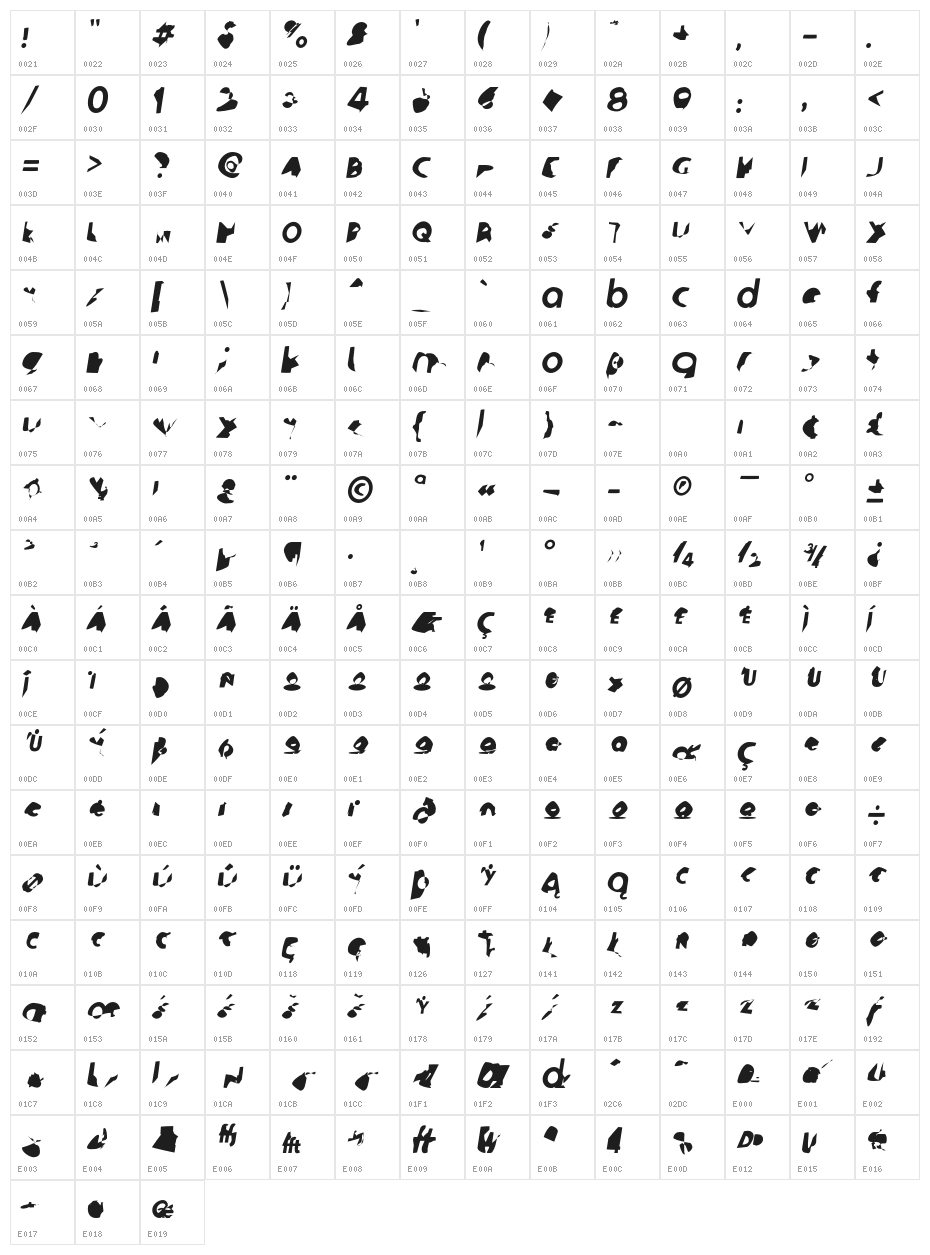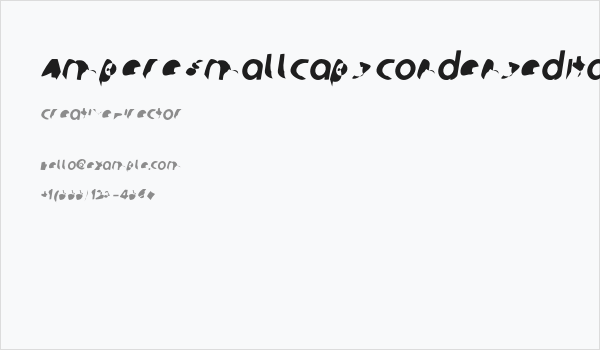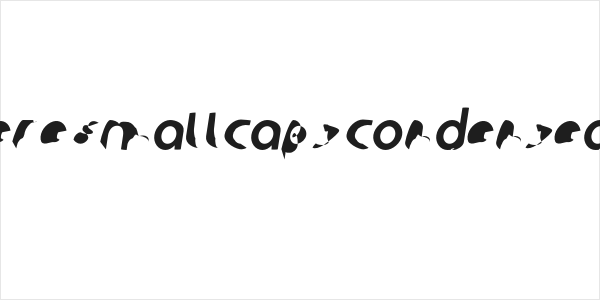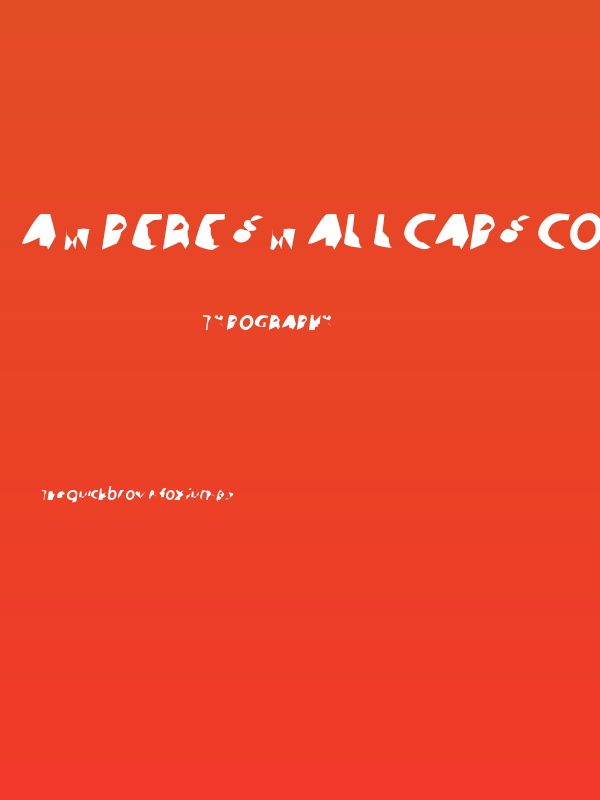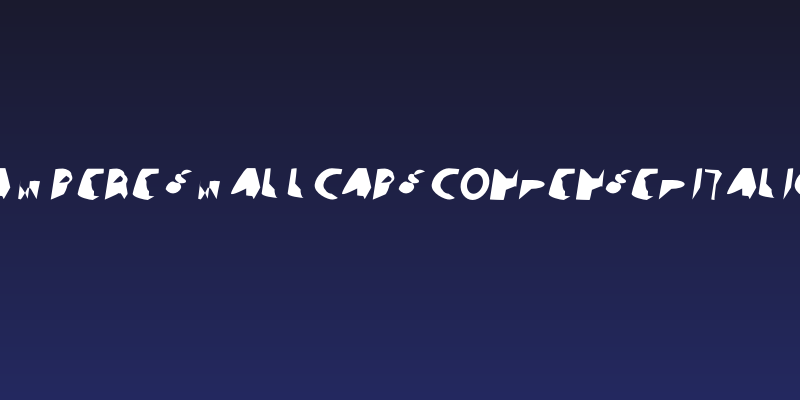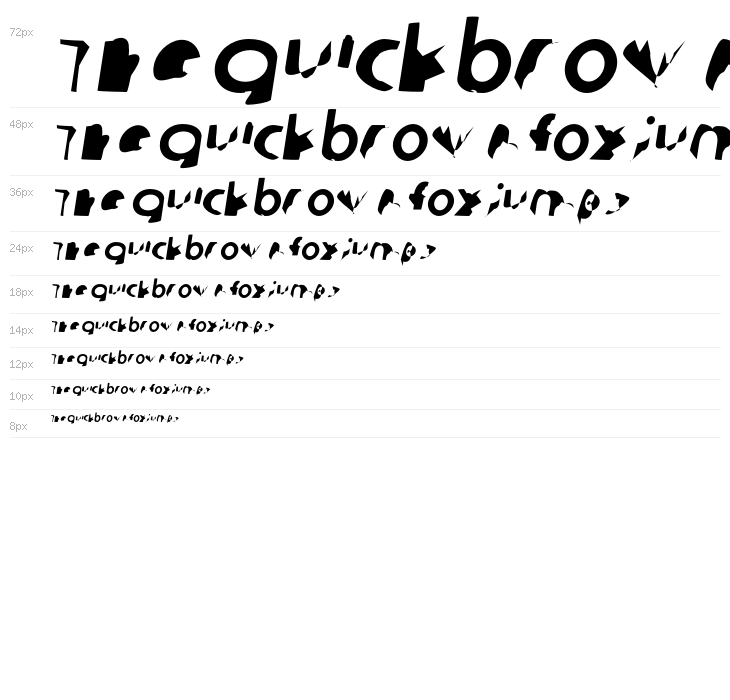
Ampere SmallCaps Condensed Italic Font
Ampere SmallCaps Condensed Italic Description
This font presents a highly stylized and abstract design, characterized by its bold and condensed letterforms. The italic slant adds a dynamic and forward-moving energy, while the small caps style gives it a uniform appearance across both uppercase and lowercase letters. The characters are fragmented and distorted, creating a unique visual effect that is both modern and artistic. This font's unconventional shapes and high contrast between thick and thin strokes make it stand out as a decorative choice.
| Overall Style | Modern, Artistic |
| Proposed Projects | Ideal for avant-garde posters, album covers, or any project seeking a bold, artistic statement. |